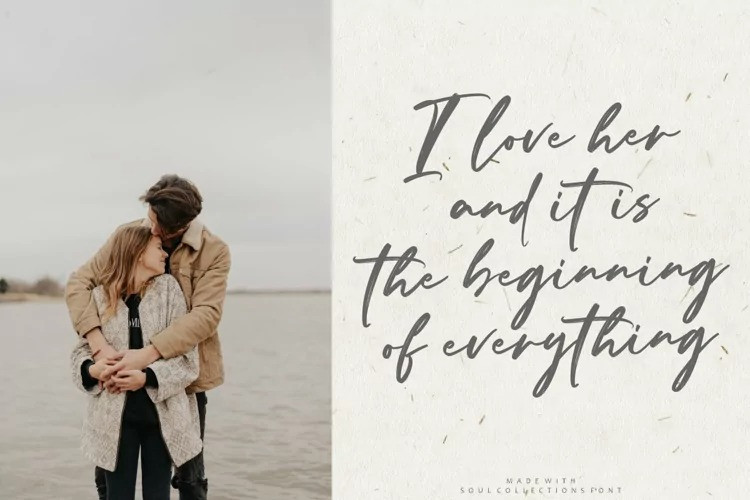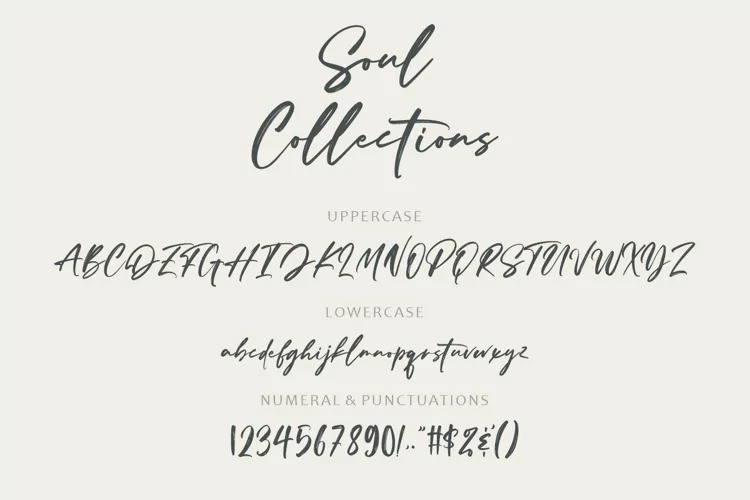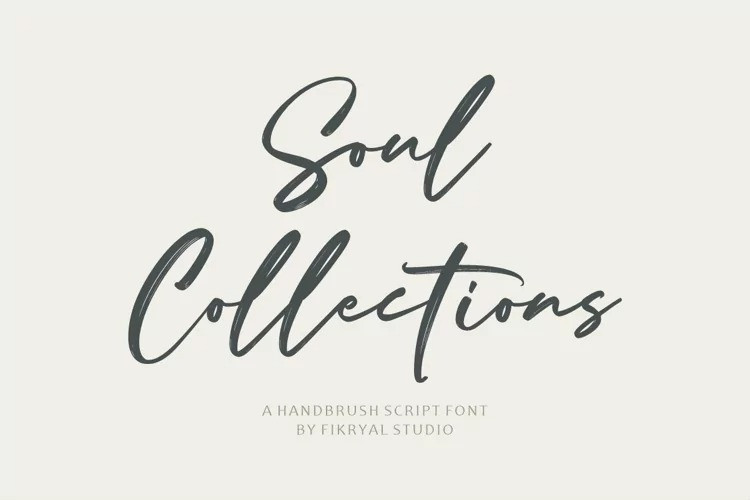
Soul Collections Brush Font
Soul Collections – This is a Hand brush Script Font. This font is made in a modern style, casual, strong, elegant, and suitable for your various design needs. it’s perfect for logo, branding, title, social media posts, advertisements, product packaging, product designs, label, photography, watermark, special event, magazine, web design, etc.